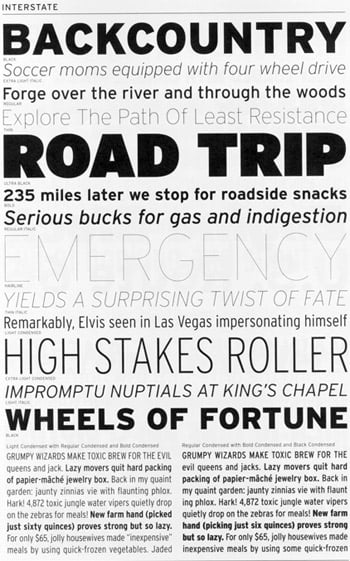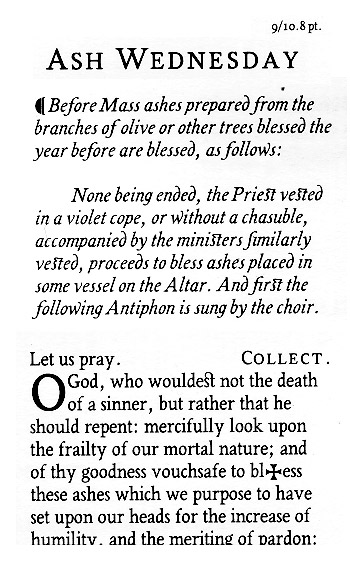
dot-font: Typographic Souvenirs
Home at last from ATypI Leipzig, creativepro.com contributing editor John D. Berry unpacks his bags, type specimen by type specimen.
A greater than usual number of commercial type specimens and other frankly promotional pieces appeared in this year's ATypI goodie bag, as opposed to the traditional non-commercial keepsakes. But the line is sometimes hard to draw, and type samples and specimen books are inherently useful to typographers. Back home from Leipzig, these typographic souvenirs not only help me put names to new faces but also remind me just how large the international type community is.
Font Bureau
Font Bureau included two different editions of its Font Bureau Retail booklets: numbers 23 and 24. The company has established a simple and effective format for the booklets, which it also combines periodically into larger catalogs of the complete type library. Each display typeface or type family has a page to itself; text families, or especially complex families, are given a two-page spread. (In one case, the Interstate family, which was released in 1994 but has recently been expanded, was given two spreads, to show off all the variants in both display and text. I'm not convinced that Interstate, which was originally based on highway signage letters, is a wise choice for text, but the specimen does give you enough samples to judge for yourself.)
The Font Bureau shows off its Interstate family.
The display showings consist of a bunch of one-line headlines, in varying sizes, weights, and styles. The headlines don't show all the characters, but they're usually witty or at least odd. "Contractors Hired" reads one headline for the typeface Gangly; the next line, all caps in a much smaller size, says, "REWIRING DONE ON LUNCH BREAK." Another typeface uses the alarming announcement, "PLANS FOR 367-SLOT TOASTER MAY NOW PROCEED."
Faces meant to be used in running text get the same treatment, but they're also shown in two-column blocks of text on a facing page. The text itself is a series of nonsense sentences that show off all the characters; the purpose seems to be more to demonstrate the visual color of each face in a column of text than to let us judge how easily our eyes devour a real passage of prose. The text samples intersperse short bits of italic or bold or small caps, as appropriate, to show how they contrast with the roman styles.
At the bottom of each page is a brief passage about the typeface and (usually) the designer (this fine print is set in a consistent text face, rather than in the face being shown on that page), plus a showing of the complete character set in one weight and style.
For a complex family, sometimes these specimens don't show enough of the characters you might want to see, in the style or weight that you're interested in. But considering the space constraints it was operating under, Font Bureau did manage to show a lot. And the showings are always enticing; they always make me want to get my hands on each typeface and put it to use.
Magpie
One small booklet that fits squarely into the keepsake tradition, yet shows off a new type family, is Vincent Connare's Magpie. He created the typeface of that name as part of the master's program in type design at the University of Reading. But Connare is no novice; he spent several years in Microsoft's typography department, and he is responsible for Trebuchet, one of Microsoft's freely downloadable typefaces designed specifically for reading onscreen. Magpie, though, is much more traditional; it's a condensed text face based on the designs of the 18th-century French type designer Pierre-Simon Fournier le jeune. This booklet explains the provenance of the design, and the design process, and it puts the typeface through its paces -- in the text itself, in sample settings of two French poems (one in roman, one in italic), and in a two-page spread of religious text taken from an English missal. With its classic look and its narrow width, Magpie could easily be used as a bible face; Connare obviously had this in mind, given that he provided a number of special characters for exactly that purpose.
Magpie, by Vincent Connare
The booklet is sober and straightforward, though graced with a lyrical paean to the magpie. The typeface is lively, perhaps because the roman seems to have evolved from the italic: "My first breakthrough was when I began on the italic font. I wanted it to be cursive and very different from the roman font.... I was pleased with the results and after showing Gerard Unger my attempt he suggested a method he once discussed with Matthew Carter -- that if you are more pleased with the italic an experiment which may help put life into the roman font is to tilt the italic upright." Connare removed the more obviously cursive features from the resulting font, but it gave him the calligraphic quality that he was looking for.
With Connare's experience on Trebuchet, it may be no surprise that Magpie was designed with the screen in mind as well as the printed page. At the end of his booklet, he shows samples of Magpie in use with the Microsoft Reader and ClearType on the screen of a handheld PocketPC. The letters look squarer here, but they show promise as a potential text face for electronic books.
Dalton Maag
In the frankly commercial category, several large-format brochures appeared from the Dalton Maag studio in London: three showing specific typefaces, and one promoting Dalton Maag's custom type-design work for large clients, called "What's a brand without a typeface?" The individual type specimens fold out into long posters, with text on the back in the appropriate typeface. They're simply and elegantly done, especially the one for the old-style text family Pan. The more robust, no-nonsense slab-serif Lexia is shown in brighter colors and a slightly starker design, and the playful Royalty, which comes in four weights (Anorexic, Average, Chubby, Obese), leaps out in purple and pink. Although all three of these type families are available to the public, it's clear that Dalton Maag's main business lies in custom type design.
Dutch Type Library
The Dutch Type Library, which is not well known in the United States because it's not actively marketed here, put two rather different items into the goodie bag: a CD-ROM full of samples of its typefaces in PDF form, and a nicely designed and printed booklet about one of them, DTL Fleischmann.
Agfa Monotype's keepsake letterpress poster
And Agfa Monotype, following the old tradition of keepsakes rather than catalogs, simply contributed a small poster, printed letterpress in several colors by Brian Allen from wood type and Monotype hot-metal Univers. A nice touch.